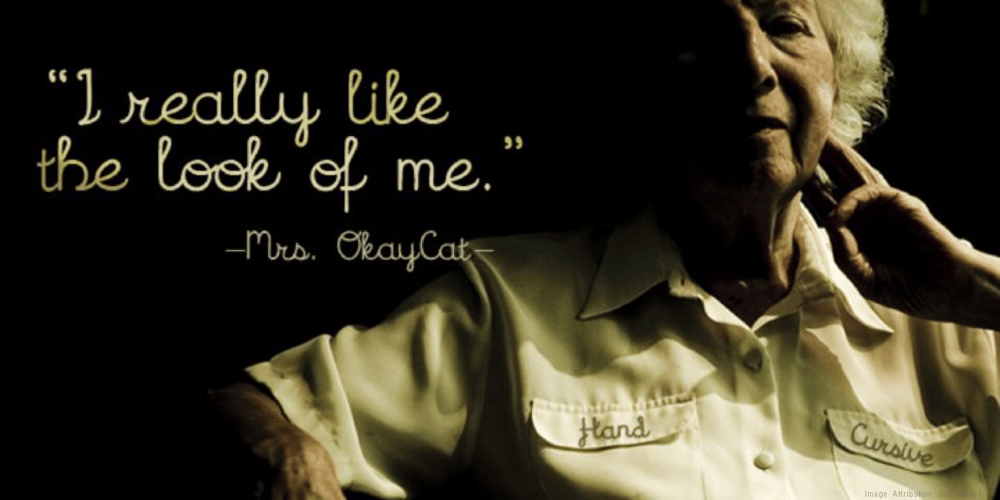
Hand Cursive Font Family was designed by Natsuko Hayashida and published by Okaycat. Hand Cursive contains 6 styles and family package options. Hand Cursive design is a cute cursive font, written by hand—careful writing with a steady pen! The applications of this full-out cursive font are many. It is designed to be creative & free-flowing, but I also wanted it to be at least somewhat proper. Use Hand Cursive any time you want fancy, legible, and luxurious text. Works great for logo design and beautiful for titles. Go ahead and have fun with it. Hand Cursive is extended, containing the full West European diacritics & a full set of ligatures, making it suitable for multilingual environments & publications.